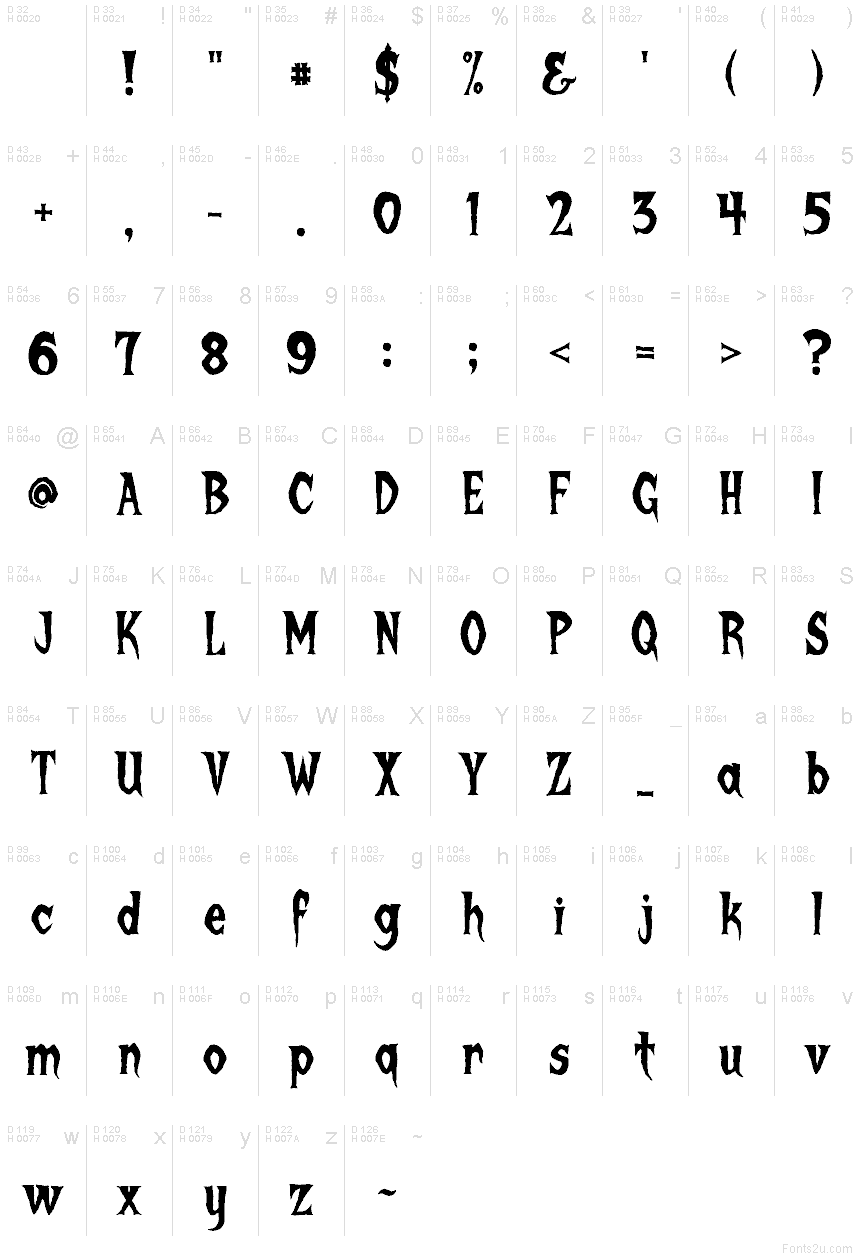
Haunted Hill Regular
Haunted Hill font by Sinister Fonts is a free bold hand-lettered horror display font. Its thorny strokes taper like candle-waxed drips, with jittery verticals and a slightly wavering rhythm that feels snatched from a midnight trailer. The texture reads inky and uneven-never sloppy-giving titles a shivery, cinematic tension without slipping into parody.
Using Haunted Hill, headlines lunge off the page-great for Halloween posters, haunted attraction signage, thriller book covers, spooky game logos, escape room branding, and YouTube thumbnails. This free font thrives big and high-contrast; add a touch of tracking for small sizes. Pair it with a clean condensed sans to keep body copy calm while the title does the screaming.